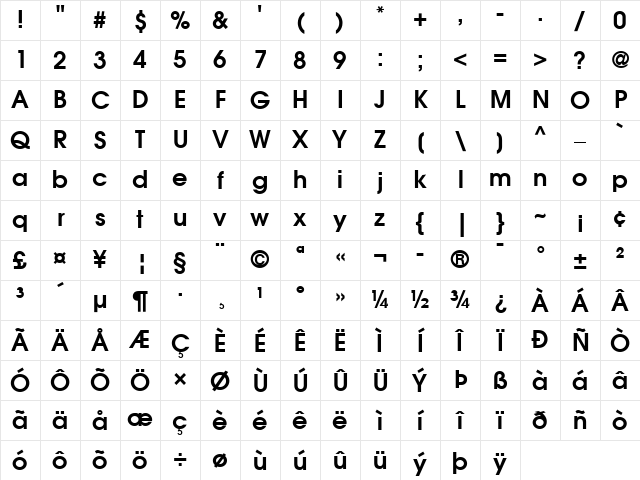
Complete AvantGarde LT Book Bold glyph index. Displaying only characters natively supported by AvantGarde LT Book Bold font.
AvantGarde LT Book is a composed and adaptable typeface that performs quietly and consistently across a wide range of design contexts. Its bold stroke weight gives it real presence on the page.